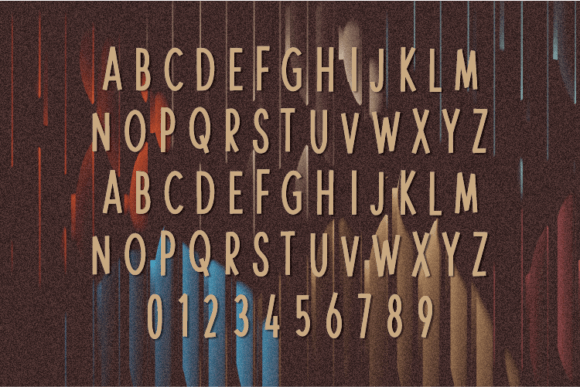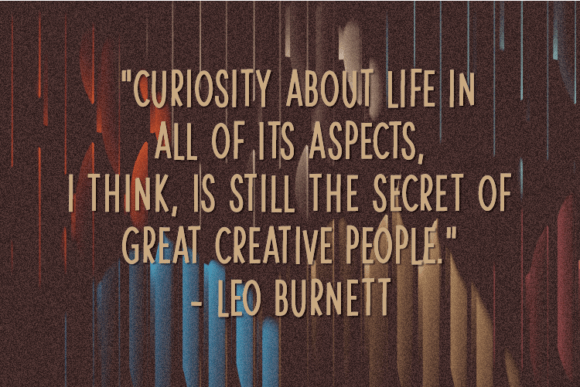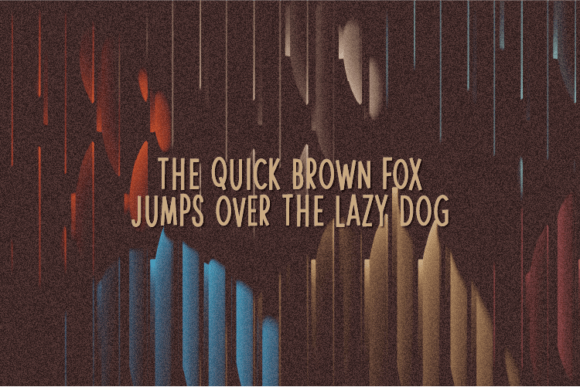
The Birth of a Unique Design: Unveiling the Intelligence Font
There’s a moment we all know – that spark of creativity when a new idea suddenly pops into our minds. It’s like a puzzle piece finally falling into place, and everything makes sense. For designers, this moment can be a game-changer. It’s the result of years of experience, countless experiments, and a dash of inspiration. And, for some, this spark led to the creation of the Intelligence Font – a natural sans serif font that’s as intriguing as it is functional.
Developed without altering a single node in each character’s indentation, the Intelligence Font is a masterpiece of design. Its uniqueness makes it perfect for a variety of applications, from quotes and notes to product design and apparel. Whether you’re a seasoned designer or just starting out, this font is sure to captivate your audience and leave a lasting impression.
Key Features of Intelligence Font
- Unique Characteristics: Features advanced ligature support, contextual alternates, and a wide range of language support, including Latin, Cyrillic, and Greek alphabets.
- Font Style: Available in three distinct styles: Regular, Bold, and Italic, each with its own unique characteristics and nuances.
- Font Weight: Offers a range of font weights, from Light to Extra Bold, allowing for precise control over font weight and emphasis.
Intelligence Font Review
As a designer, I was excited to dive into the Intelligence Font, and overall, I have mixed feelings about it. ✨ There are some great things about this font, but also some limitations that hold it back.
- ✨ Unique and modern design: The Intelligence Font has a sleek and contemporary feel that’s perfect for modern websites and applications.
- ✨ Excellent legibility: The font is highly legible, even at smaller font sizes, making it a great choice for body text.
- ✨ Wide language support: The font includes a wide range of languages, making it a great choice for multilingual projects.
- ⚠️ Limited stylistic flexibility: While the font has a unique design, it’s not particularly versatile, making it less suitable for projects that require a lot of stylistic variation.
- ⚠️ Limited character set: The font’s character set is limited, which may not be suitable for projects that require a wide range of special characters.
While the Intelligence Font has some great qualities, its limitations hold it back from being a top choice for me. It’s a solid choice for modern, straightforward projects, but may not be the best fit for more complex or stylized designs.
Intelligence Font is ideal for:
- Creating visually appealing headings and titles.
- Adding a touch of sophistication to your designs.
- Creating custom typography.